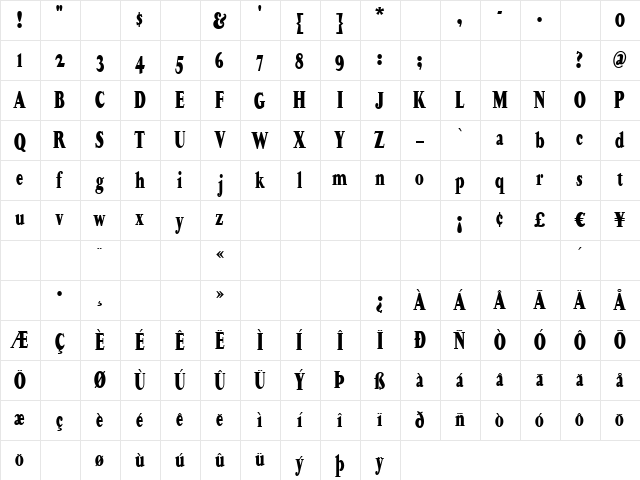
HappyCampersNF Regular
| Foundry | Nick's Fonts |
| Designer | Nick Curtis |
Design Context for HappyCampersNF Typeface
HappyCampersNF takes a measured approach to typography — its balanced proportions and neutral character make it a reliable workhorse for both digital and print work.